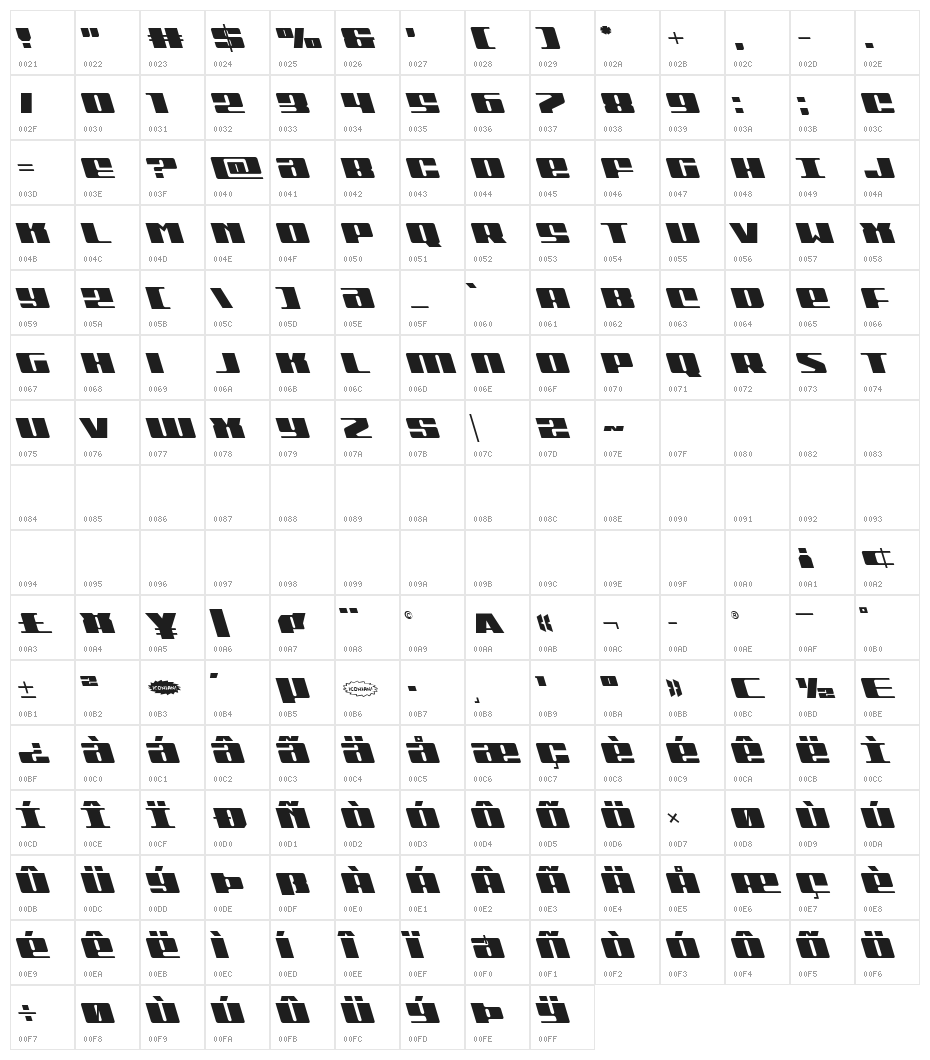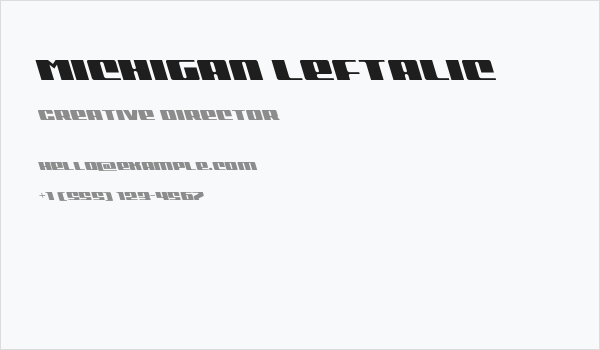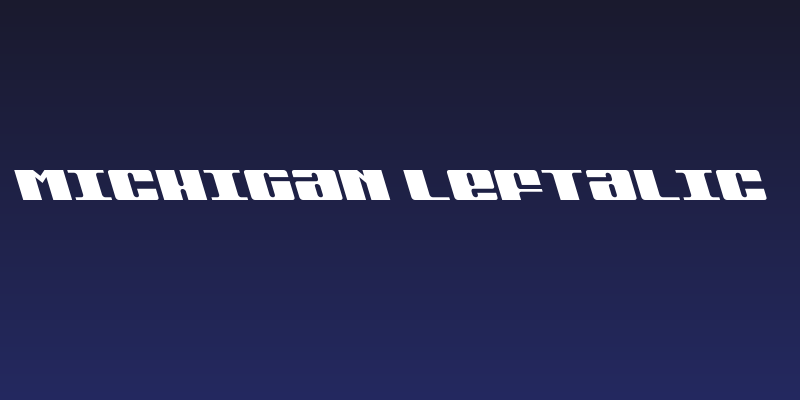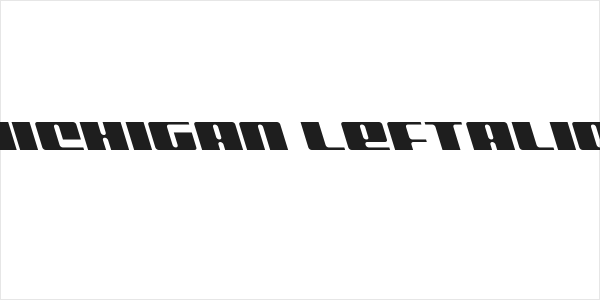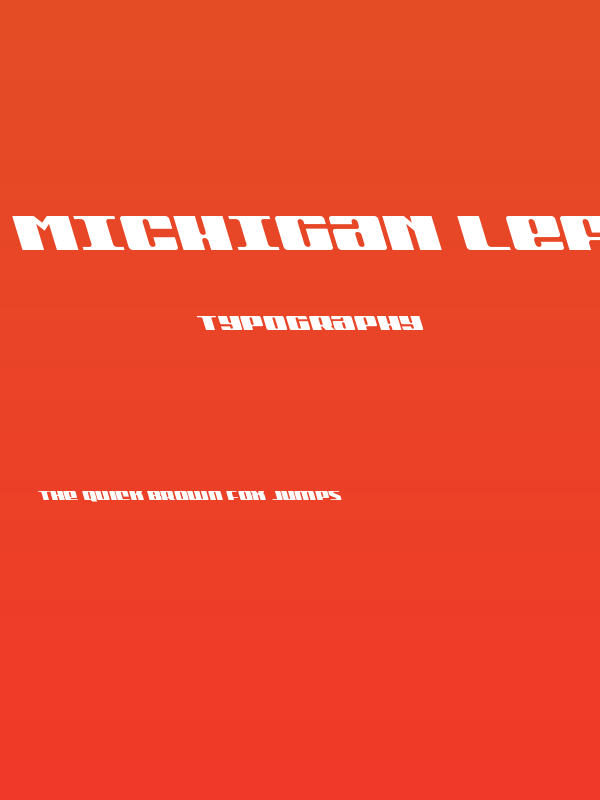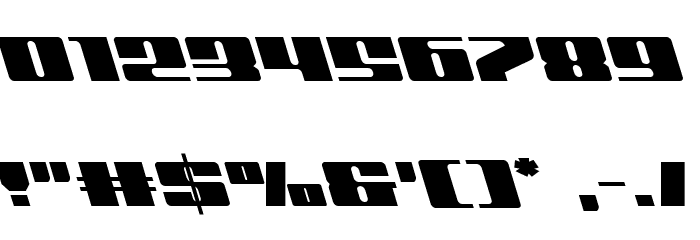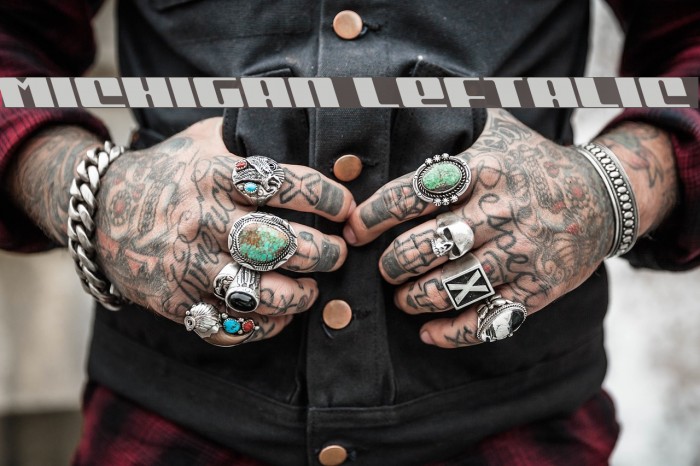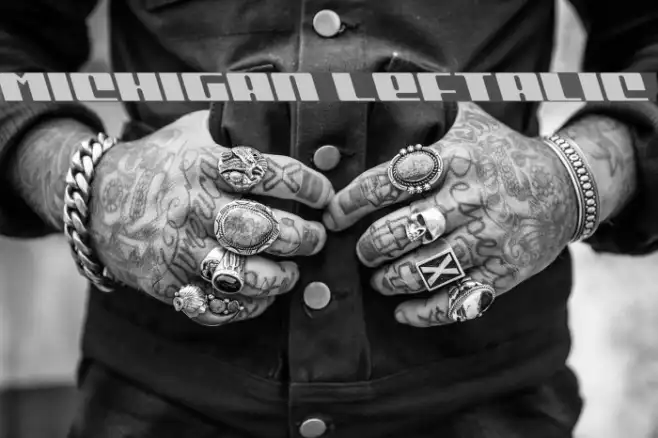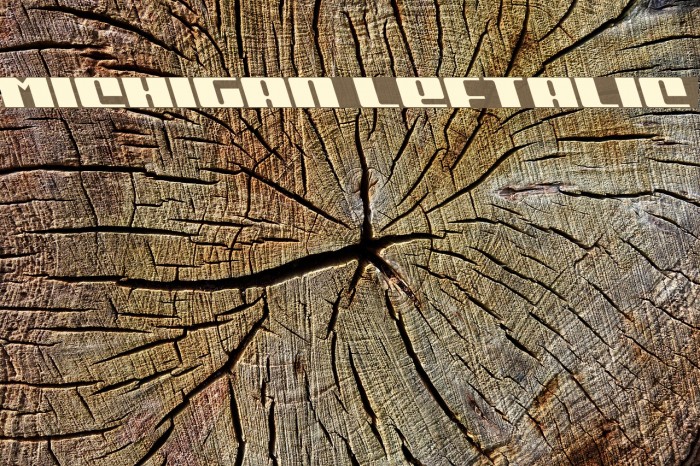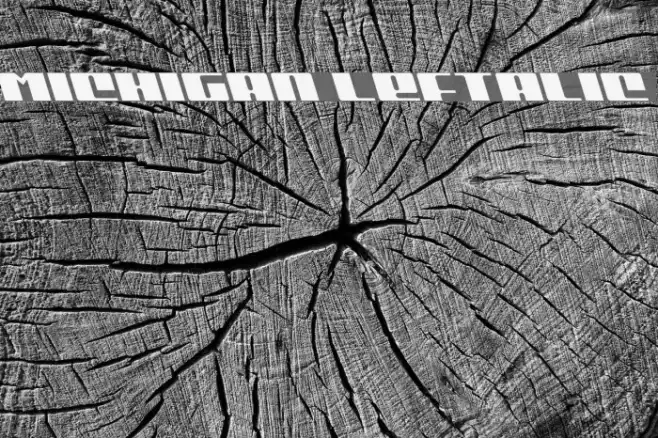
Michigan Leftalic Font
Michigan Leftalic Description
This font features a bold, angular design with a distinct slant, giving it a dynamic and modern appearance. The characters are heavily stylized with sharp edges and a blocky structure, creating a sense of movement and energy. The uppercase and lowercase letters maintain a consistent style, with the lowercase slightly smaller but equally bold. The numbers and special characters follow the same design principles, ensuring uniformity across all glyphs. The font's unique style makes it stand out, ideal for projects that require a strong visual impact.
| Proposed Projects | Ideal for sports branding, dynamic posters, video game titles, and edgy marketing materials. |